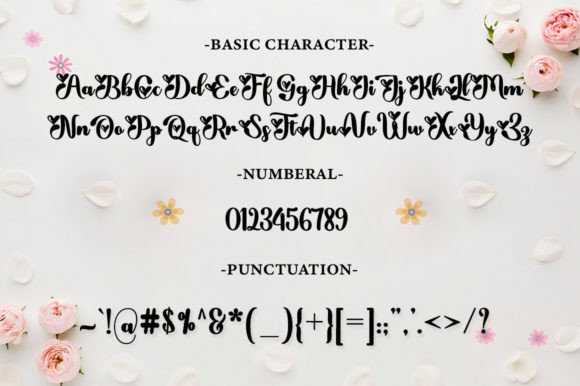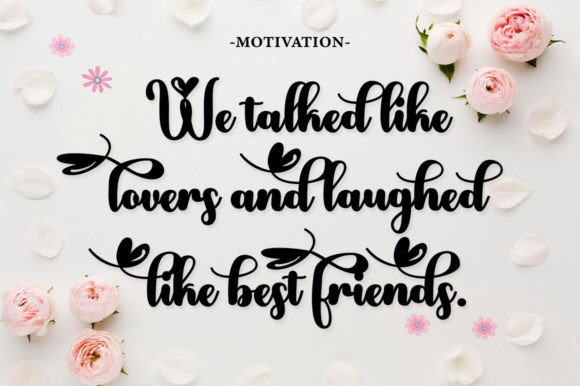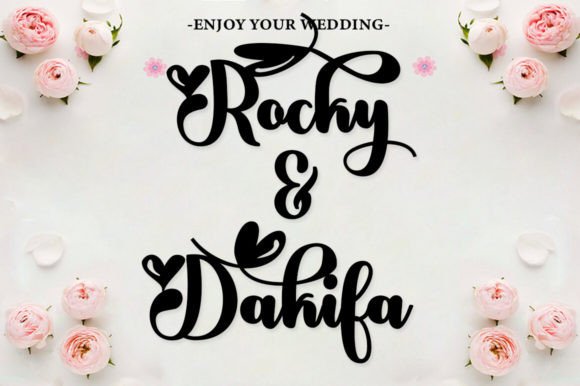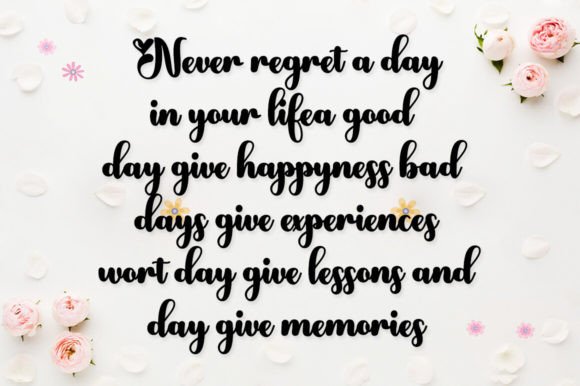
The Perfect Blend of Creativity and Elegance: Introducing Ayela Font
Have you ever stared at a blank page, your mind racing with ideas, yet unable to put your thoughts into words? That’s when the magic happens – when inspiration strikes, and your creative juices start flowing. For designers and artists, this moment is a blessing in disguise, and it’s exactly what makes working with the right tools so essential.
Enter Ayela Font, a beautiful, handwritten font that will bring warmth and romance to any project. This versatile and flexible font is perfect for designers who want to add a touch of personality to their work. With its extensive language support and PUA coding, you’ll have access to all the glyphs and swashes you need to create stunning designs.
Ayela Font Key Features
- Font Family: Ayela comes in multiple font styles, including Ayela Regular, Ayela Italic, Ayela Bold, and Ayela Bold Italic.
- Character Set: Supports a wide range of languages, including Latin, Cyrillic, and Greek alphabets, making it a versatile font for global applications.
- Unique Characteristics: Ayela features a unique blend of modern and traditional design elements, with elegant curves and subtle flair, making it ideal for creative and professional projects.
Ayela Font Review
Overall, I think the Ayela Font is a lovely addition to any design project. ✨ It has a unique, elegant feel that can elevate the look of any text-based element. The font is well-suited for a variety of applications, from headings to body text.
- ✨ Elegant, sophisticated feel: The Ayela Font has a classic, refined appearance that can add a touch of sophistication to any design.
- ✨ High legibility: The font is easy to read, even at smaller font sizes, making it a great choice for body text or other areas where readability is key.
- ✨ Versatile: The Ayela Font can be used for a wide range of applications, from headings to captions and even logotypes.
- ⚠️ Limited language support: The Ayela Font may not support all languages, which could be a limitation for designers working on multilingual projects.
- ⚠️ Limited customization options: While the Ayela Font has a lovely aesthetic, it may not be easily customizable, which could be a limitation for designers who want to add their own unique touch.
Overall, I think the Ayela Font is a great choice for designers looking for a elegant, sophisticated font. While it may have some limitations, its unique feel and high legibility make it a great addition to any design project.
Tips for Getting the Most Out of Ayela Font
Use Ayela Font for:
- Body text in creative projects
- Designing elegant and sophisticated layouts
Ayela Font is ideal for projects that require a touch of elegance and sophistication.
Ayela Font is commonly used in:
- Editorial and literary publications
Alternatives to Ayela Font for Designers
Lato is a sans-serif font designed by Łukasz Dziedzic. It is a clean and modern font suitable for various design projects, including logos, headings, and body text. Lato is a great alternative to Ayela Font for designers who need a neutral and versatile font. It is available in multiple weights and styles, making it easy to customize for different design needs. Compared to Ayela Font, Lato is more versatile and has a wider range of applications.
Merriweather is a classic serif font designed by Eben Sorkin. It is a timeless and elegant font suitable for formal design projects, such as business cards, letterheads, and magazines. Merriweather is a great alternative to Ayela Font for designers who need a sophisticated and traditional font. It is available in multiple weights and styles, making it easy to customize for different design needs. Compared to Ayela Font, Merriweather is more formal and traditional.